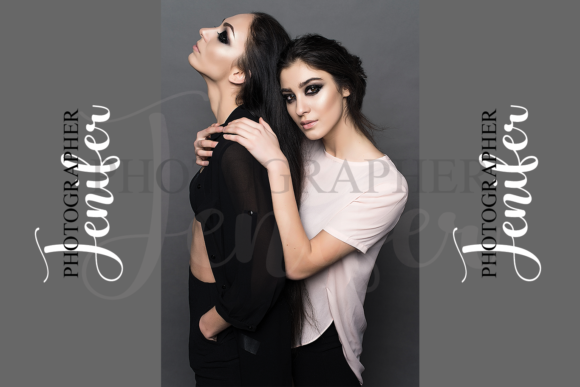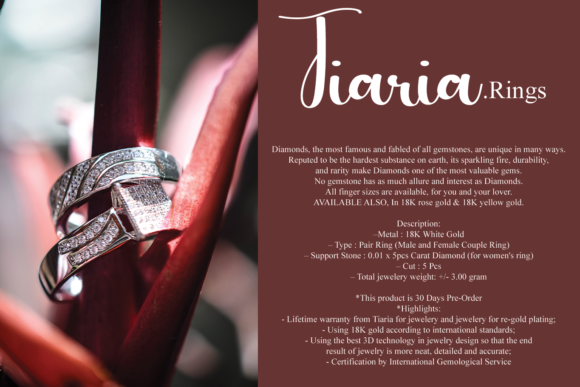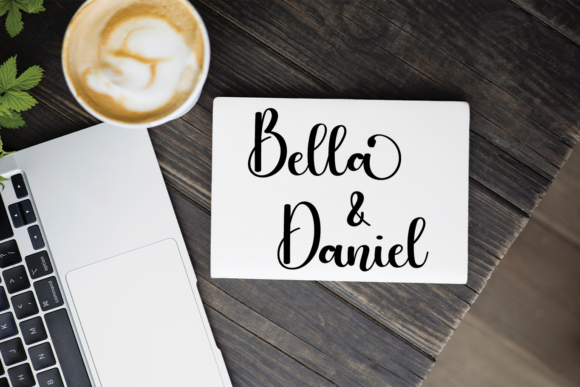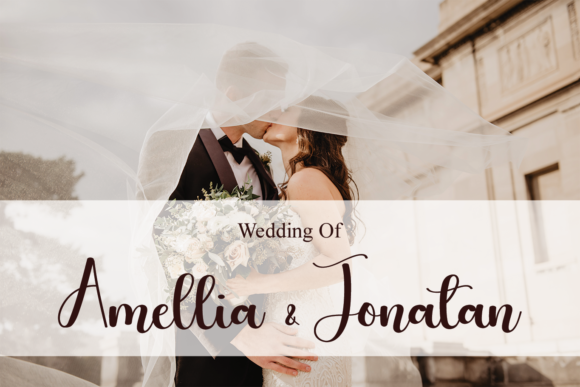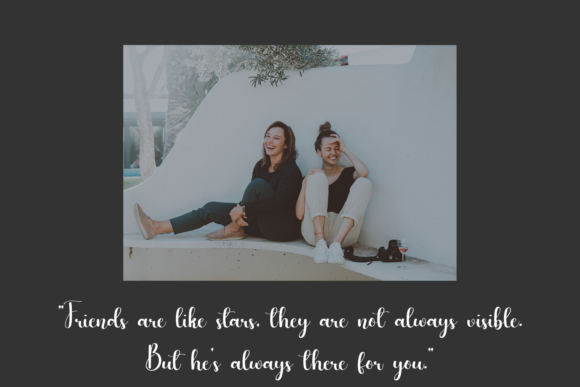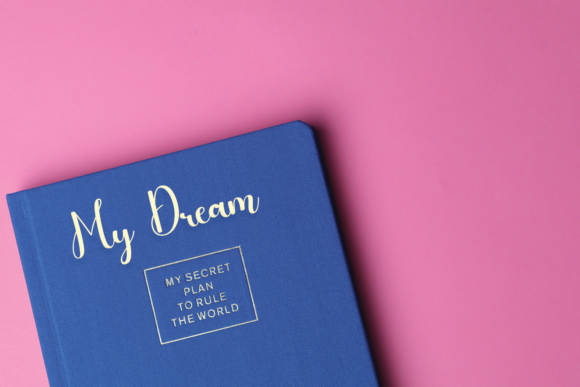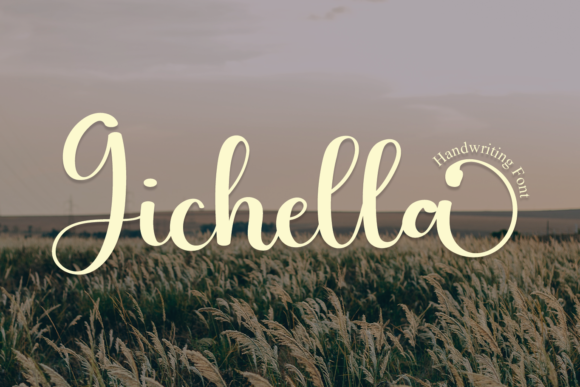
Gichella Font: Elevate Your Designs with Elegance and Sophistication
Are you tired of using the same old fonts in your designs? Look no further than the Gichella font, a stunning handwritten font that is sure to become your new favorite. With its perfect blend of classy calligraphic influences and modern freshness, Gichella is the ideal choice for designers and crafters looking to add a touch of elegance and sophistication to their projects.
The Story Behind Gichella Font
Gichella is more than just a font – it’s a work of art. Masterfully designed to capture the essence of handwritten calligraphy, Gichella boasts a unique and exquisite style that is sure to captivate audiences. Its creator had a vision to craft a font that would not only be beautiful but also versatile, and Gichella truly delivers.
What Makes Gichella Font So Special?
So, what sets Gichella apart from other fonts? Here are just a few reasons why Gichella is a cut above the rest:
- Classy Calligraphic Influences: Gichella’s roots in traditional calligraphy give it a timeless elegance that is hard to find in modern fonts.
- Contemporary and Fresh: Despite its classic influences, Gichella feels modern and fresh, making it perfect for designers looking for a font that will make their projects stand out.
- Versatility: Gichella is incredibly versatile, making it suitable for a wide range of projects, from wedding invitations and branding materials to packaging and digital media.
- Easy to Read: Gichella’s clear and flowing script makes it easy to read, even at smaller sizes.
How to Use Gichella Font in Your Designs
Now that you’re eager to get your hands on Gichella, let’s talk about how to incorporate it into your designs. Here are a few ideas to get you started:
- Wedding Invitations: Gichella’s elegant script makes it perfect for wedding invitations, save-the-dates, and other wedding-related materials.
- Branding and Packaging: Use Gichella to add a touch of sophistication to your brand’s packaging, business cards, and marketing materials.
- Digital Media: Gichella is also great for digital media, including social media graphics, blog headers, and email newsletters.
- Stationery and Crafts: Gichella is a great choice for crafters and stationery enthusiasts, perfect for creating custom journals, planners, and greeting cards.
Tips for Getting the Most Out of Gichella Font
To truly make Gichella shine in your designs, here are a few tips to keep in mind:
- Pair it with Neutrals: Gichella’s bold script pairs perfectly with neutral colors like black, white, and gray.
- Experiment with Sizes: Don’t be afraid to experiment with different font sizes to create visual interest and hierarchy in your designs.
- Add Decorative Elements: Consider adding decorative elements like flourishes, borders, or illustrations to really make your designs pop.
In conclusion, the Gichella font is a true gem that is sure to become a favorite among designers and crafters. Its unique blend of classy calligraphic influences and modern freshness makes it the perfect choice for a wide range of projects. Whether you’re looking to add a touch of elegance to your branding, create beautiful wedding invitations, or craft unique stationery, Gichella is the perfect choice. So why wait? Fall in love with Gichella and bring your projects to the highest levels!